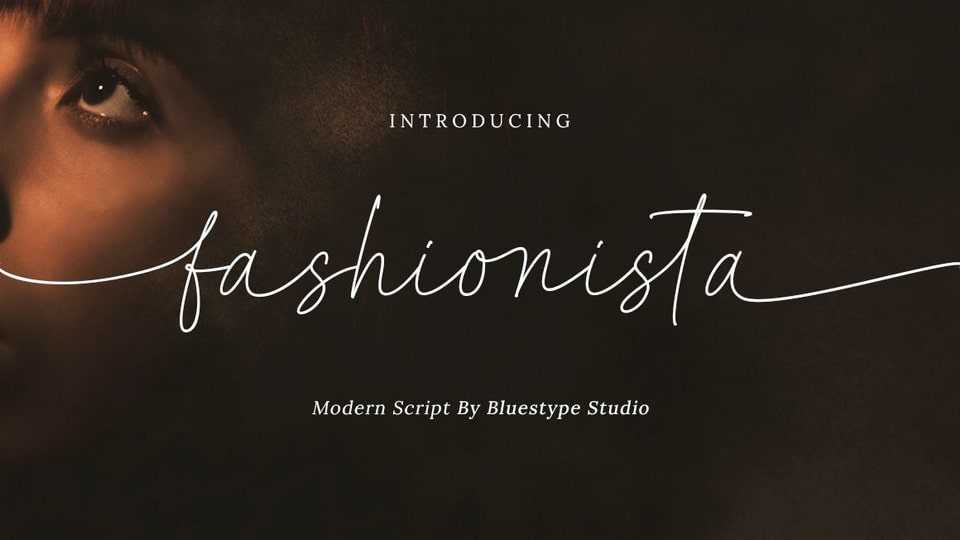
Download Fashionista font, a typeface that has a modern and elegant shape with a luxurious feel and is made with very neat handwriting, so use all the features of this font to make your design look attractive!